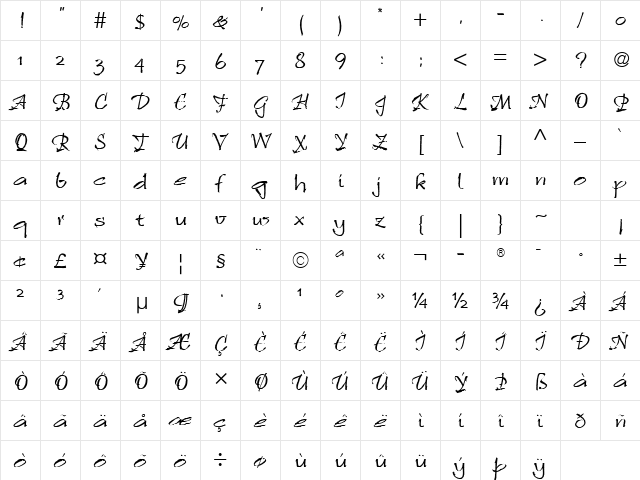
Ruling Script LT Std 2 Regular Font Preview
| Designer | Gottfried Pott |
Design Context for Ruling Script LT Std 2 Typeface
Ruling Script LT Std 2 brings a calligraphic fluidity to the page — its connecting strokes and expressive curves give it an unmistakably human quality. The delicate stroke weight brings airiness and refinement to layouts.
Font Pairing: Combine Ruling Script LT Std 2 with a simple geometric sans for maximum contrast — the tension between flowing curves and clean structure is a classic typographic pairing.
Pro Tip: Pair Ruling Script LT Std 2 with a clean sans-serif for supporting text. The contrast between fluid script and geometric structure creates an elegant typographic hierarchy.